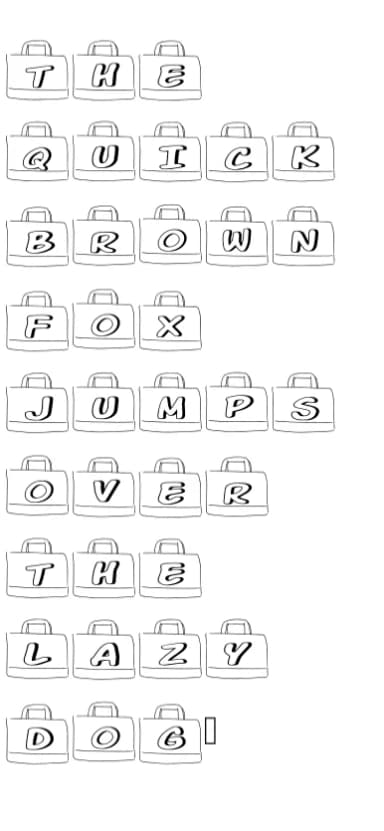
Imagine designing a wedding invitation suite where the typography itself becomes part of the visual story, or creating a playful t-shirt graphic that needs character beyond standard lettering. Carry on, designed by Happy Bamboo, is a dingbat typeface that turns ordinary text into decorative elements, with each character reimagined as a small bag or vessel shape. This unusual approach gives the font natural versatility across projects that benefit from a touch of visual narrative.
The visual concept works particularly well for gift tags, custom greeting card sets, and scrapbooking layouts where you want typography to do more than just communicate words. It's equally suited to logo lettering for playful brands, banner designs, and hand-lettered poster work. Designers using this font often find it strikes the right balance between being distinctive enough to draw attention without overwhelming the composition. Since this is a dingbat font, it includes a full character set of these decorative bag shapes, making it easy to create patterns or fill large areas with texture.
Carry on Font is a versatile dingbats font that works for both headings and body text. Pair it with a contrasting sans-serif or serif font to add visual interest and a clear distinction between titles and body copy.
Carry on Font
by Happy Bamboo